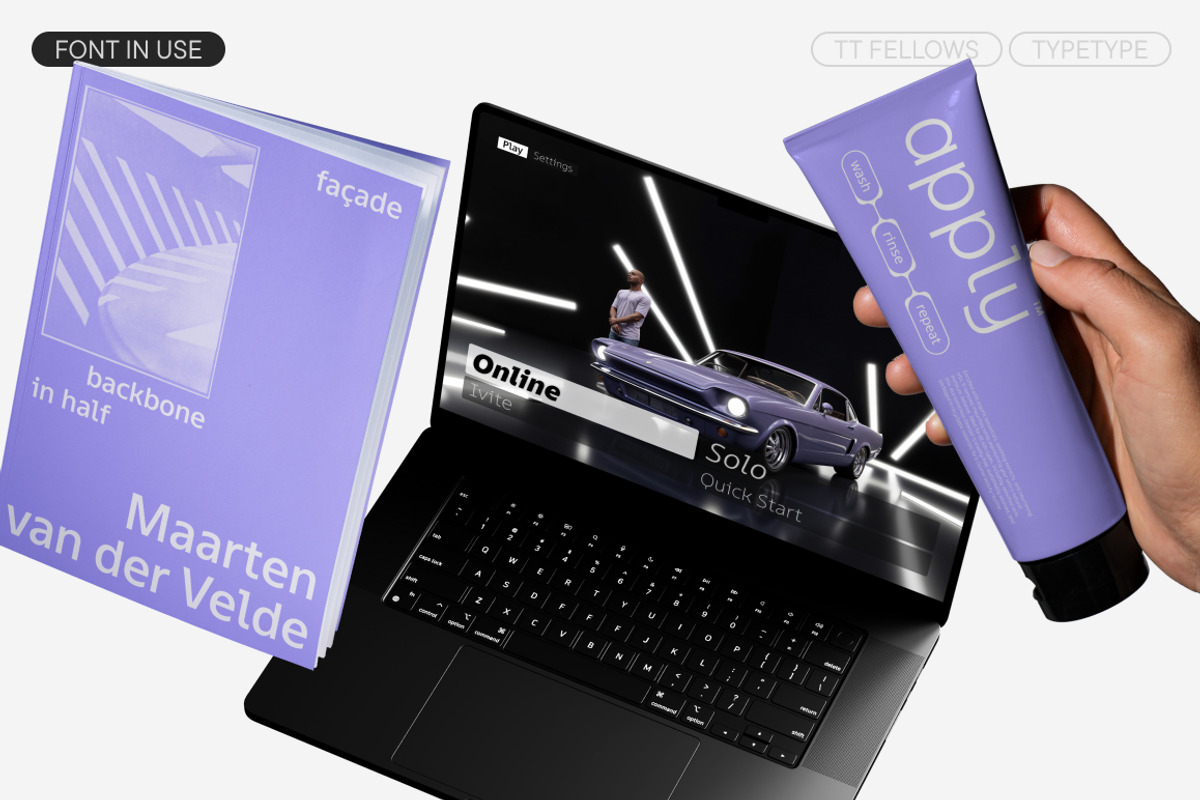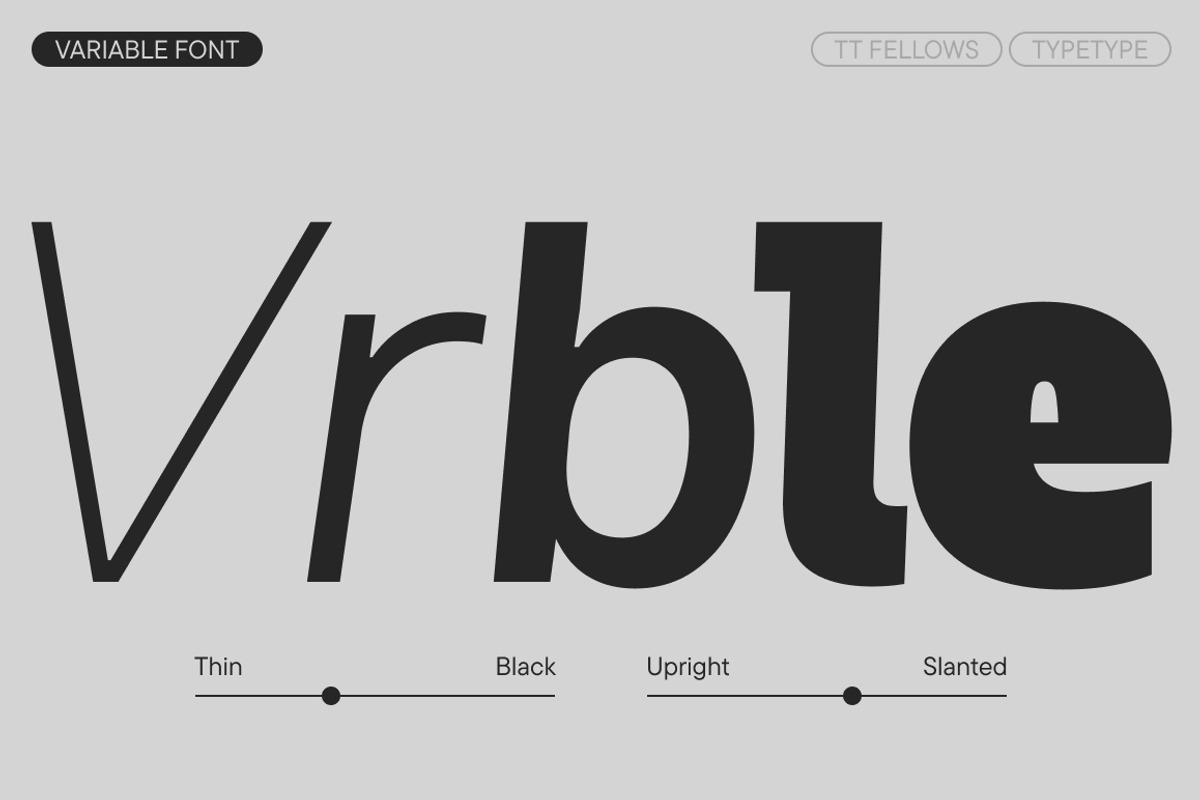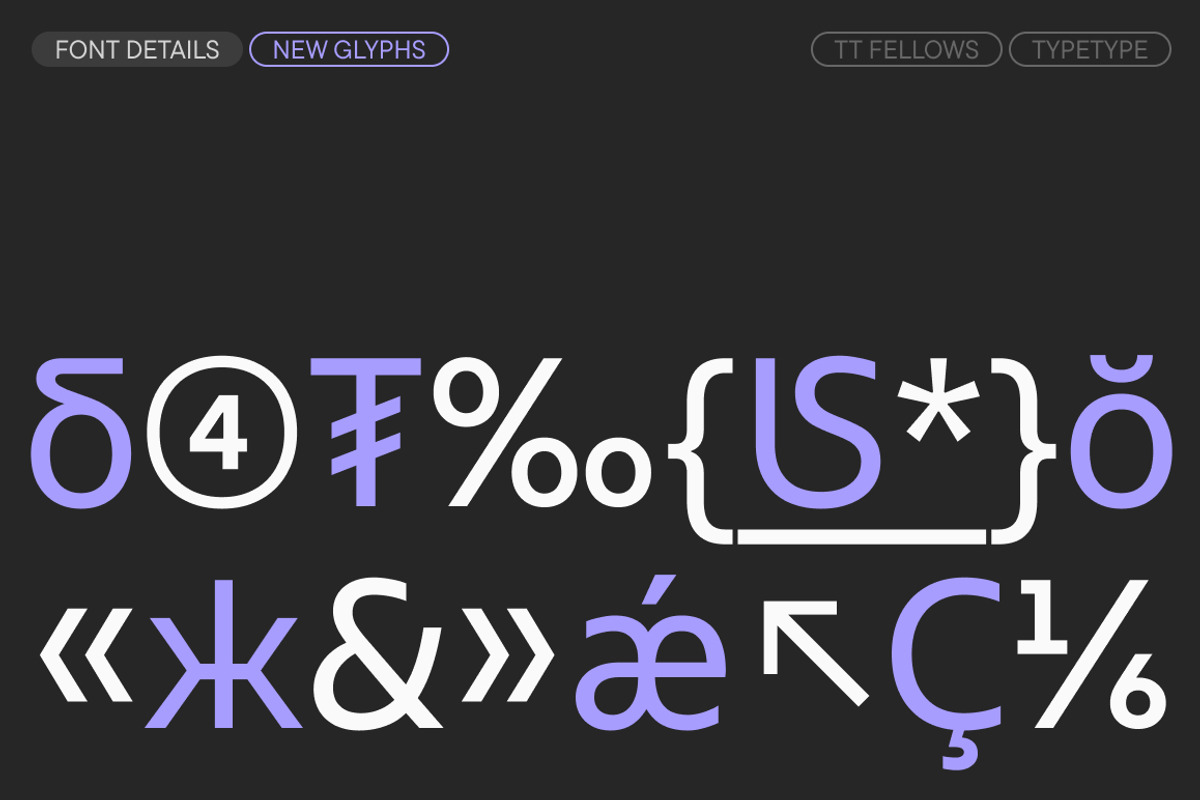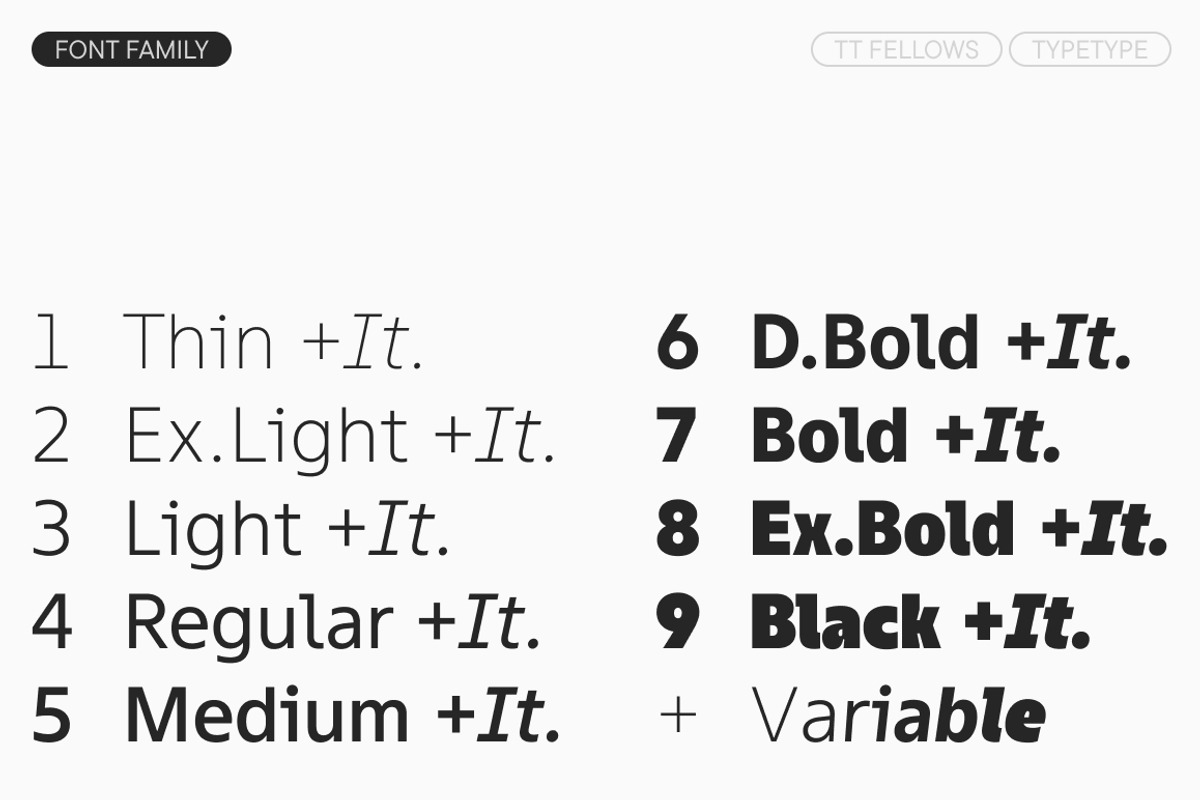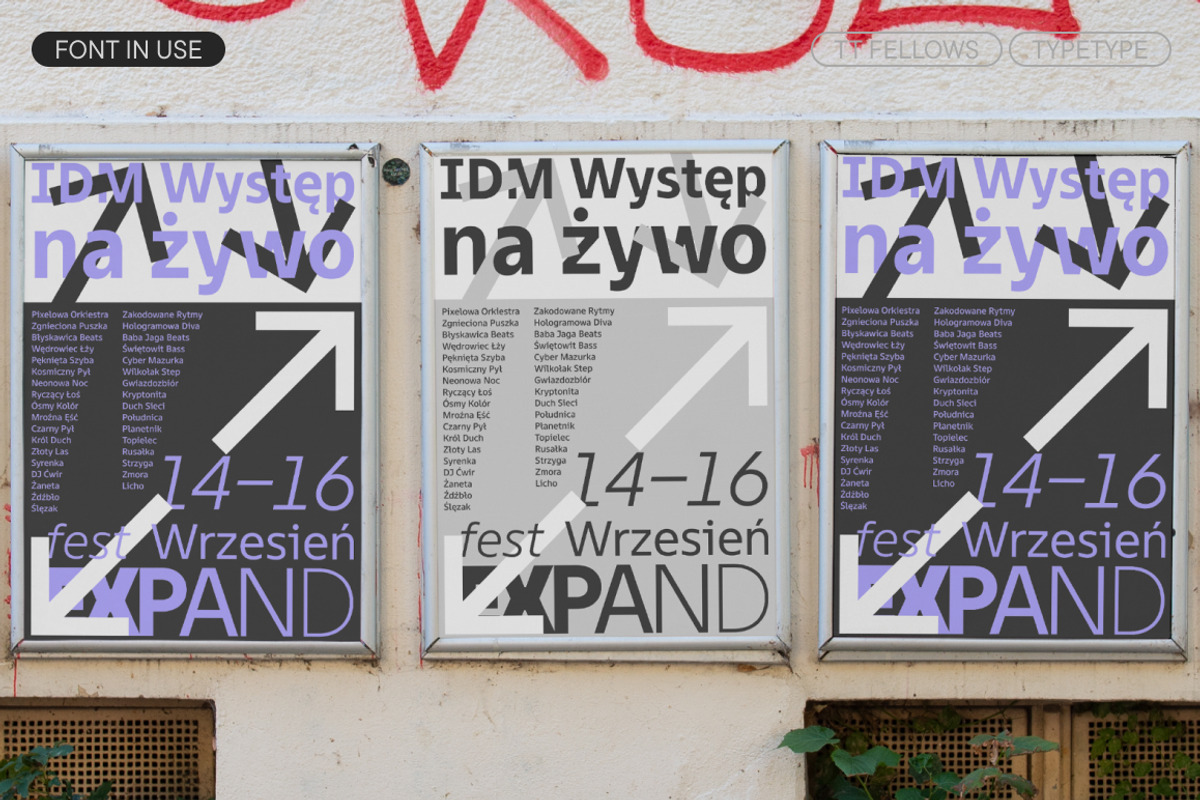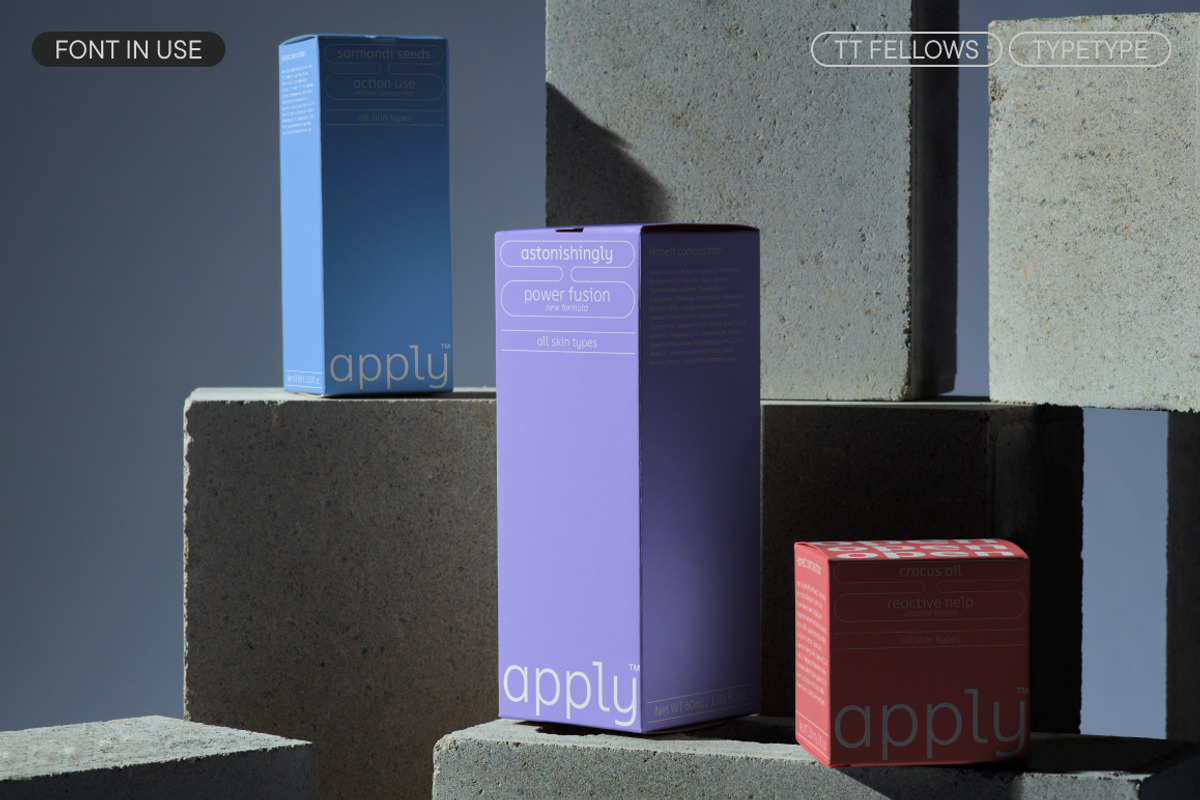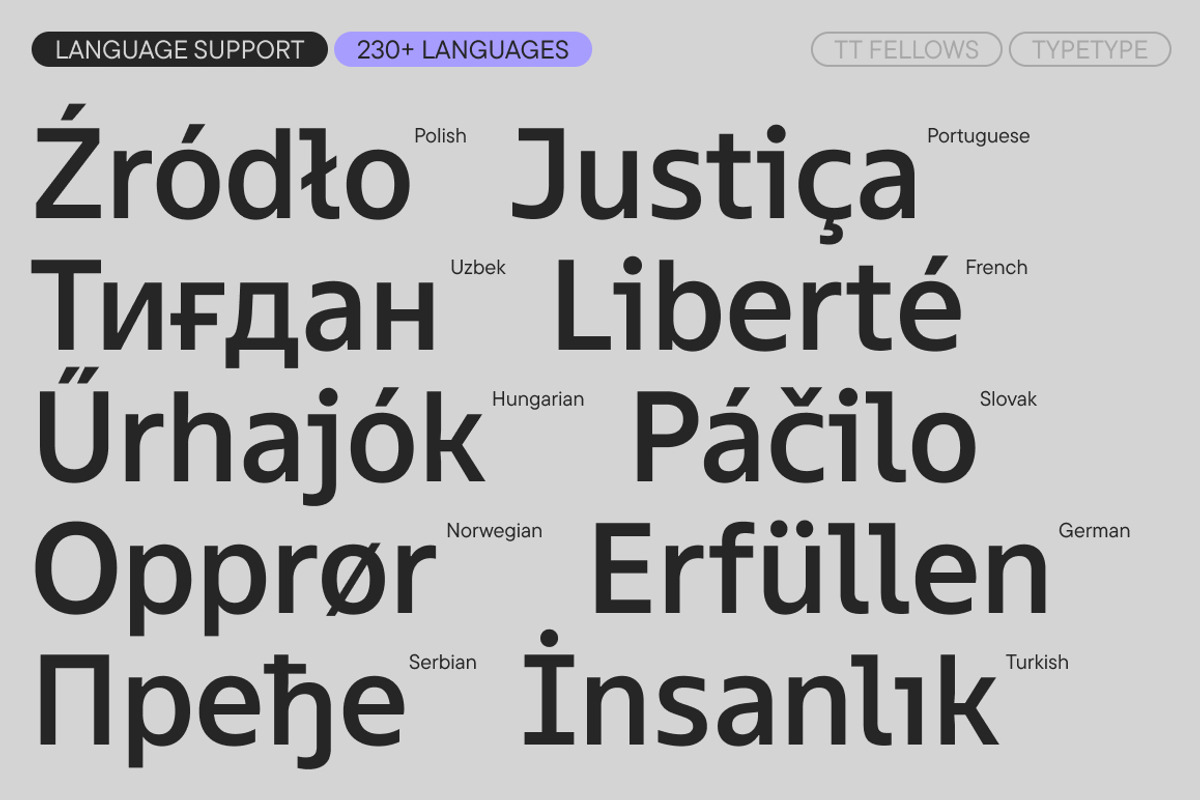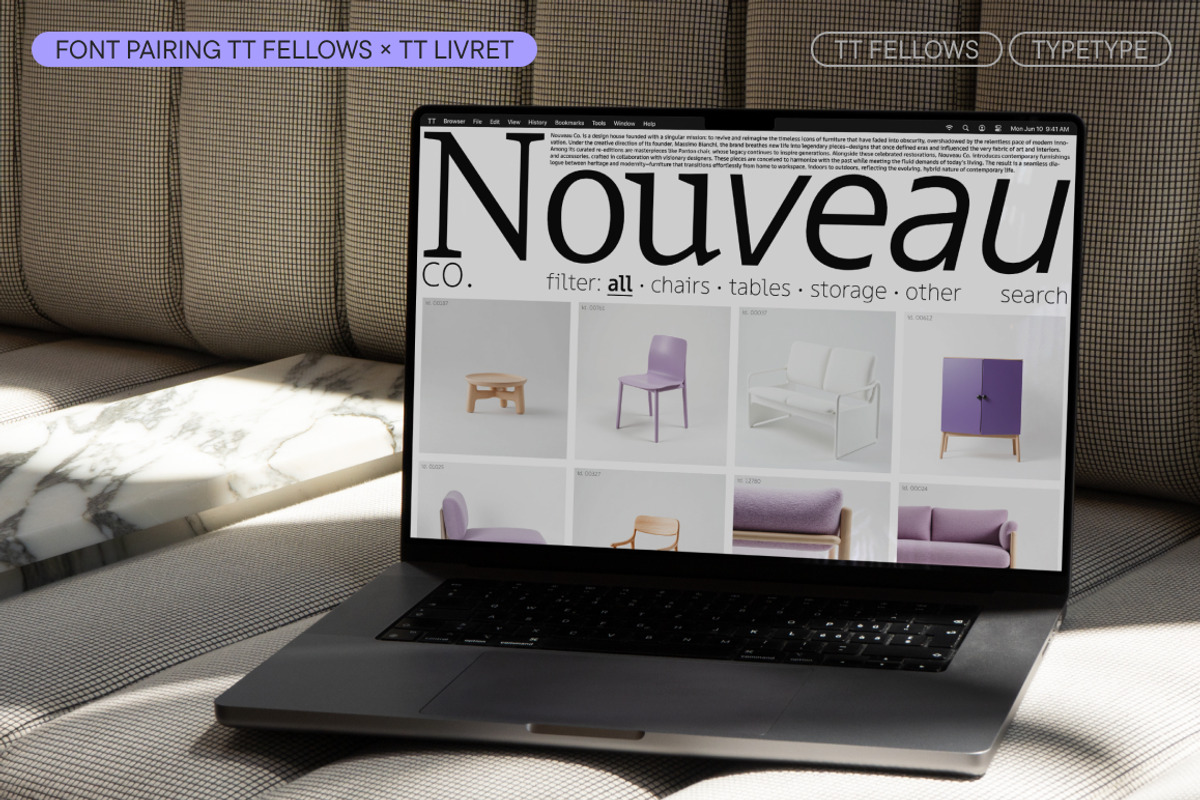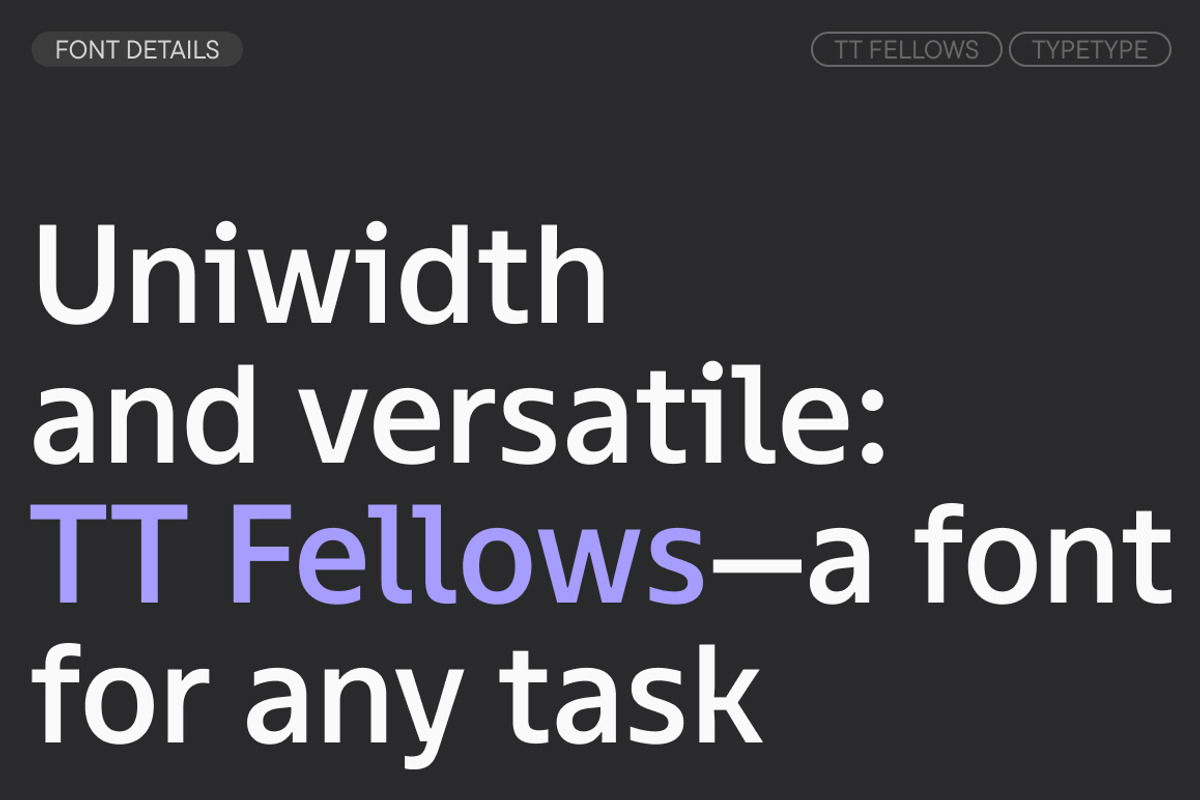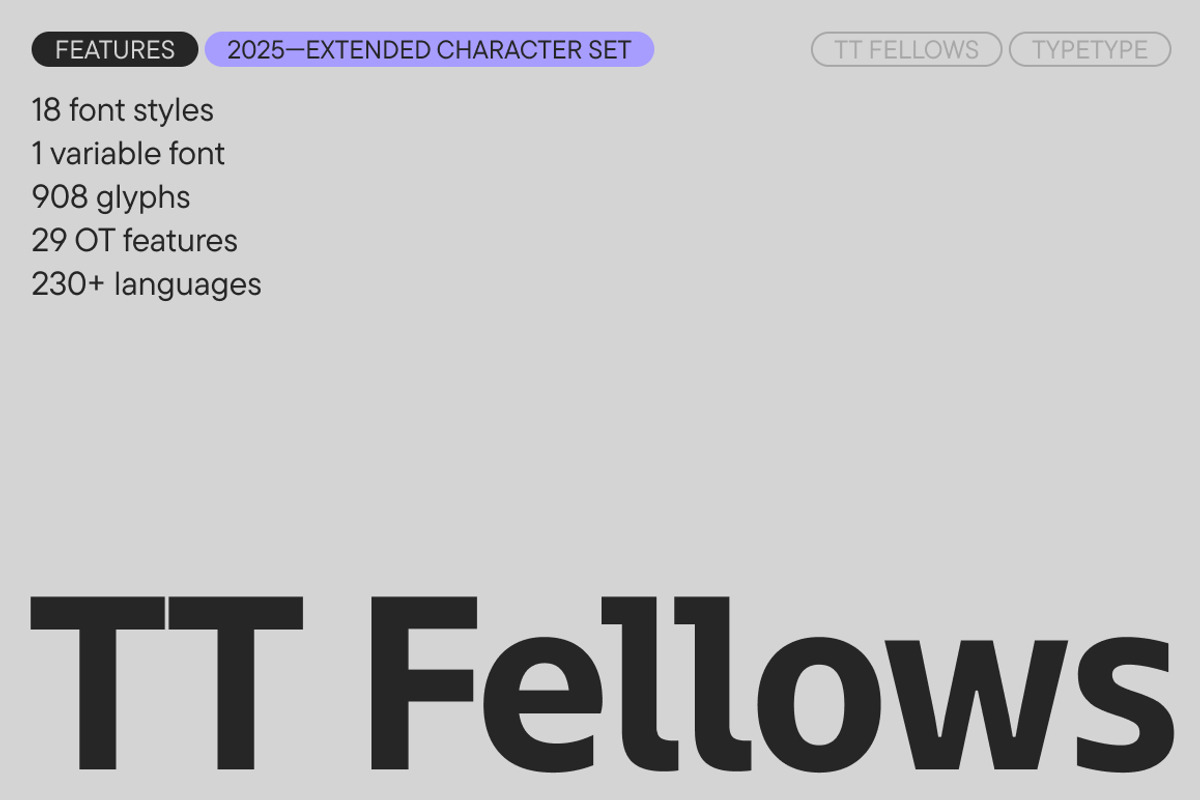
TT Fellows
Meet the improved TT Fellows! We've updated this functional font to version 1.100: significantly expanded the character set, added stylistic alternatives, new features, and languages.
TT Fellows is a humanist sans-serif with open forms and mechanistic motifs. The character of this typeface appears calm and neutral at first glance, however its mood can change. In bold weights it looks soft and friendly, while in thin weights it becomes more restrained and laconic.
A key advantage of TT Fellows is its uniwidth design, ensuring layouts remain consistent when switching between different font styles. Its distinctive features include equal-width proportions, open apertures, and slightly squared ovals. The typeface also offers a variable font option that allows seamless adjustment along weight and slant axes, making it highly adaptable to various design requirements.
When updating the typeface, we enhanced the extended Cyrillic and supplemented the Latin character set, expanded the basic currency set, including adding currencies for numerators/denominators, oldstyle and oldstyle tabular figures, and fractions. We also supplemented stylistic sets, added new useful OpenType features and languages.
TT Fellows is convenient to use and perfect for setting large text blocks. Thanks to its uniwidth nature and versatility, this font is ideal for use on websites, in mobile applications, or in printed publications. Bold font styles will look harmonious in headings, help create a bright accent in branding or on packaging.
TT Fellows version 1.100 includes:
- 19 styles: 9 uprights, 9 italics, and 1 variable font
- 908 characters in each style
- 29 OpenType features
- Support for more than 230 languages
TT Fellows is a reliable typographic companion, ready to help designers in any situation!
Full list of OpenType features: aalt, ccmp, ordn, locl, case, frac, sinf, subs, sups, numr, dnom, tnum, onum, lnum, pnum, ss01 (Single-storey a), ss02 (Round y), ss03 (Circled Numbers), ss04 (Negative Circled Numbers), ss05 (Dutch IJ), ss06 (Catalan Ldot), ss07 (Romanian Comma Accent), ss08 (Turkish i), ss09 (Bashkir localization), ss10 (Chuvash localization), ss11 (Bulgarian localization), ss12 (Serbian localization), dlig, calt